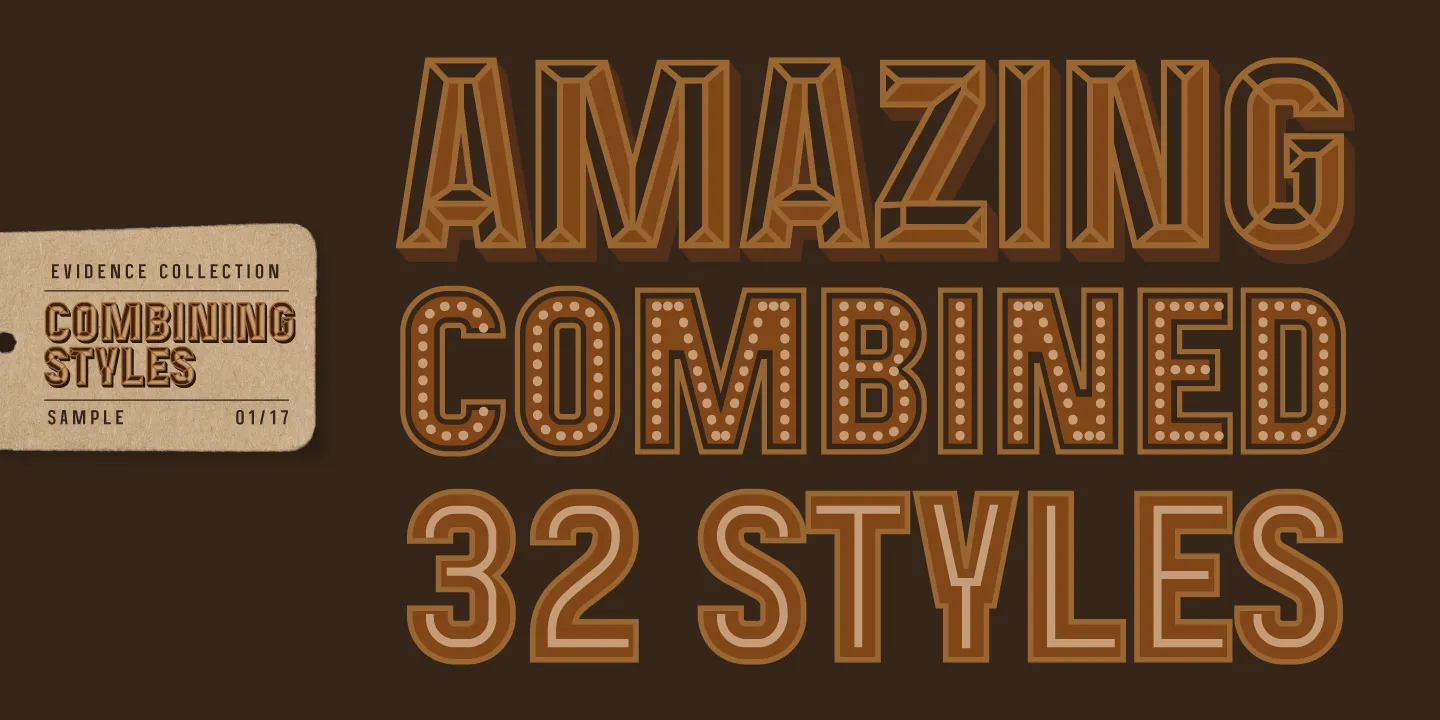
We are very excited to announce the release of our latest typeface, Mensrea! Based on police TV shows, this superfamily includes an impressive 32 styles that can either be used as stand alone weights or combined as layers with the other fonts to create stunning effects. Tell us what you think & if you act now, you can grab this typeface family for just $69.00 till the end of June!